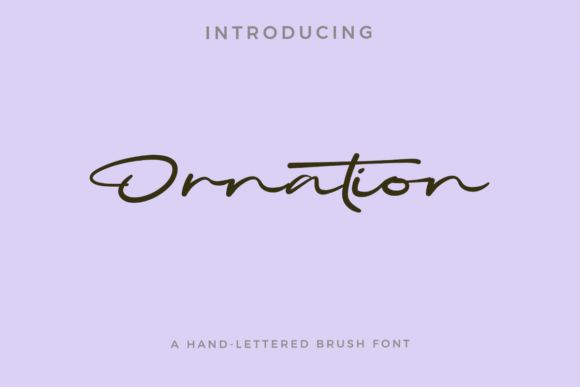
Introducing Ornation Font: Elevate Your Designs with Elegance and Charm
In the world of typography, few fonts manage to capture the essence of elegance and charm as effortlessly as Ornation. This exquisite handwritten font is a masterpiece of modern script typography, boasting a unique blend of aesthetic appeal and remarkable character. In this article, we’ll dive deep into the world of Ornation, exploring its features, benefits, and applications, as well as providing insights into how this beautiful font can elevate your creative projects.
What is Ornation Font?
Ornation is a meticulously crafted handwritten font that embodies the delicate intricacies of script typography. Its endearing appeal and lovely cursive strokes make it an ideal choice for designers seeking to add a touch of elegance and personality to their work. With its undeniable charm, Ornation promises to enchant your audience and leave a lasting impression.
The Benefits of Using Ornation Font
So, what sets Ornation apart from other fonts? Here are just a few benefits of incorporating this beautiful font into your typographic toolkit:
- Elegance and Sophistication: Ornation’s refined, cursive strokes evoke a sense of luxury and sophistication, perfect for high-end branding, packaging, and editorial projects.
- Unique Character: Ornation’s distinctive style ensures that your designs stand out from the crowd, injecting personality and charm into your typography.
- Versatility: This font is suitable for a wide range of applications, from digital and print materials to branding and advertising.
- Easy to Read: Despite its elegant nature, Ornation remains highly legible, making it perfect for body text and longer-form content.
Design Tips for Using Ornation Font
To get the most out of Ornation, here are some expert design tips to keep in mind:
- Pair with Neutrals: Combine Ornation with neutral fonts, such as sans-serifs or classic serifs, to create stunning contrast and visual hierarchy.
- Experiment with Colors: Ornamentation shines in a range of colors, from rich jewel tones to soft pastels. Don’t be afraid to experiment and find the perfect hue for your design.
- Play with Scale: Use Ornamentation to create visual interest by varying font sizes and weights. This adds depth and dimension to your designs.
Applications of Ornamentation Font
Ornamentation’s versatility makes it suitable for a wide range of applications, including:
- Branding and Logos: Create memorable, high-end brand identities with Ornamentation’s elegant, cursive strokes.
- Packaging Design: Add a touch of luxury and sophistication to product packaging with this beautiful font.
- Editorial Design: Elevate editorial content, such as magazines, newspapers, and blogs, with Ornamentation’s refined, easy-to-read style.
- Digital Design: Use Ornamentation in digital applications, such as website headers, social media graphics, and email marketing campaigns.
Typography Tips for Ornamentation Font
To get the most out of Ornamentation, here are some typography tips to keep in mind:
- Pay Attention to Kerning: Adjust kerning to ensure that Ornamentation’s elegant strokes flow smoothly and consistently.
- Use Ligatures: Take advantage of Ornamentation’s built-in ligatures to add an extra touch of elegance and sophistication.
- Experiment with Tracking: Adjust tracking to create visual interest and add personality to your typography.
Ornamentation Font Inspiration
For inspiration, take a look at some of the stunning designs created with Ornamentation:
- Wedding Stationery: Create beautiful, elegant wedding stationery with Ornamentation’s refined, cursive strokes.
- Luxury Packaging: Elevate high-end packaging designs with Ornamentation’s sophisticated, elegant style.
- Editorial Spreads: Use Ornamentation to create stunning editorial spreads, perfect for fashion, lifestyle, and beauty publications.
In conclusion, Ornamentation is an exquisite handwritten font that embodies the essence of elegance and charm. With its unique character, versatility, and ease of use, this font is perfect for designers seeking to elevate their creative projects. Whether you’re working on branding, packaging, editorial, or digital design, Ornamentation promises to add a touch of sophistication and personality to your typography.